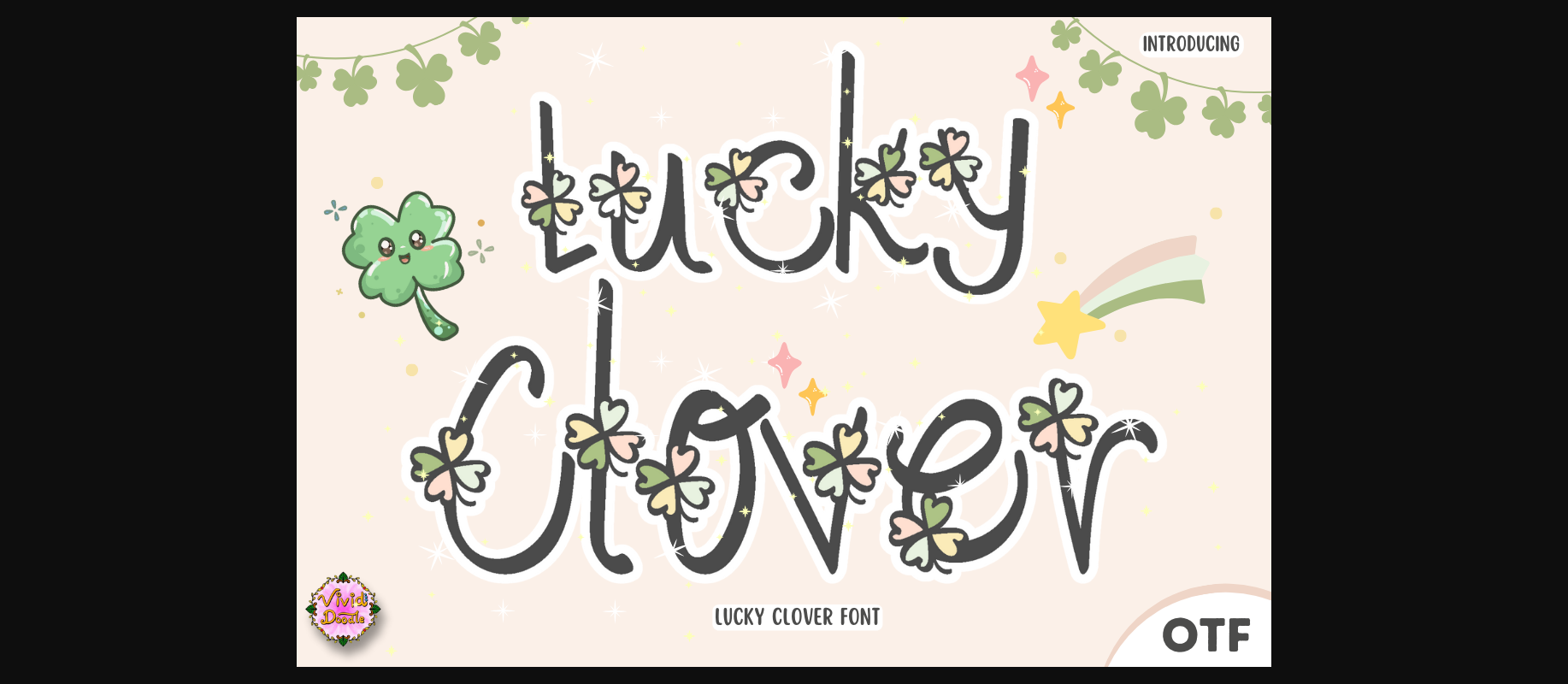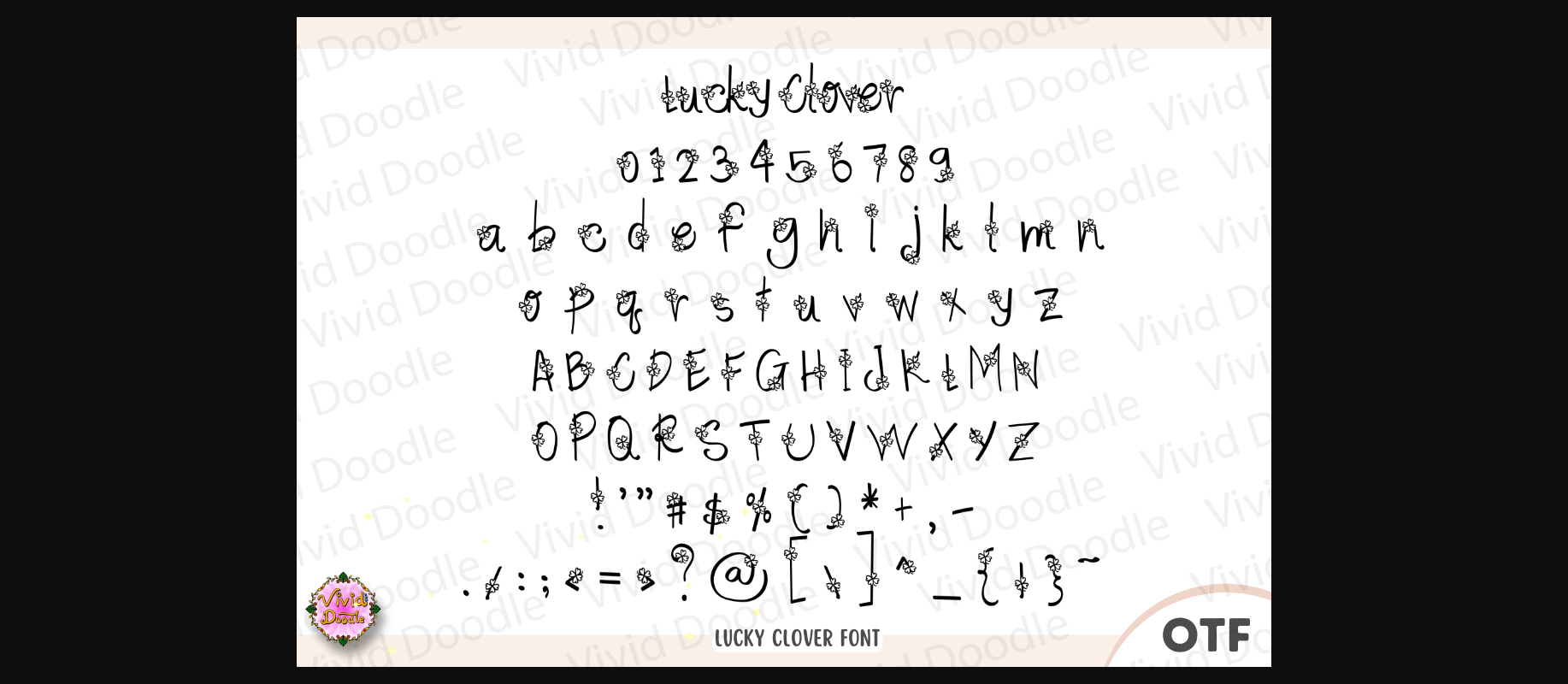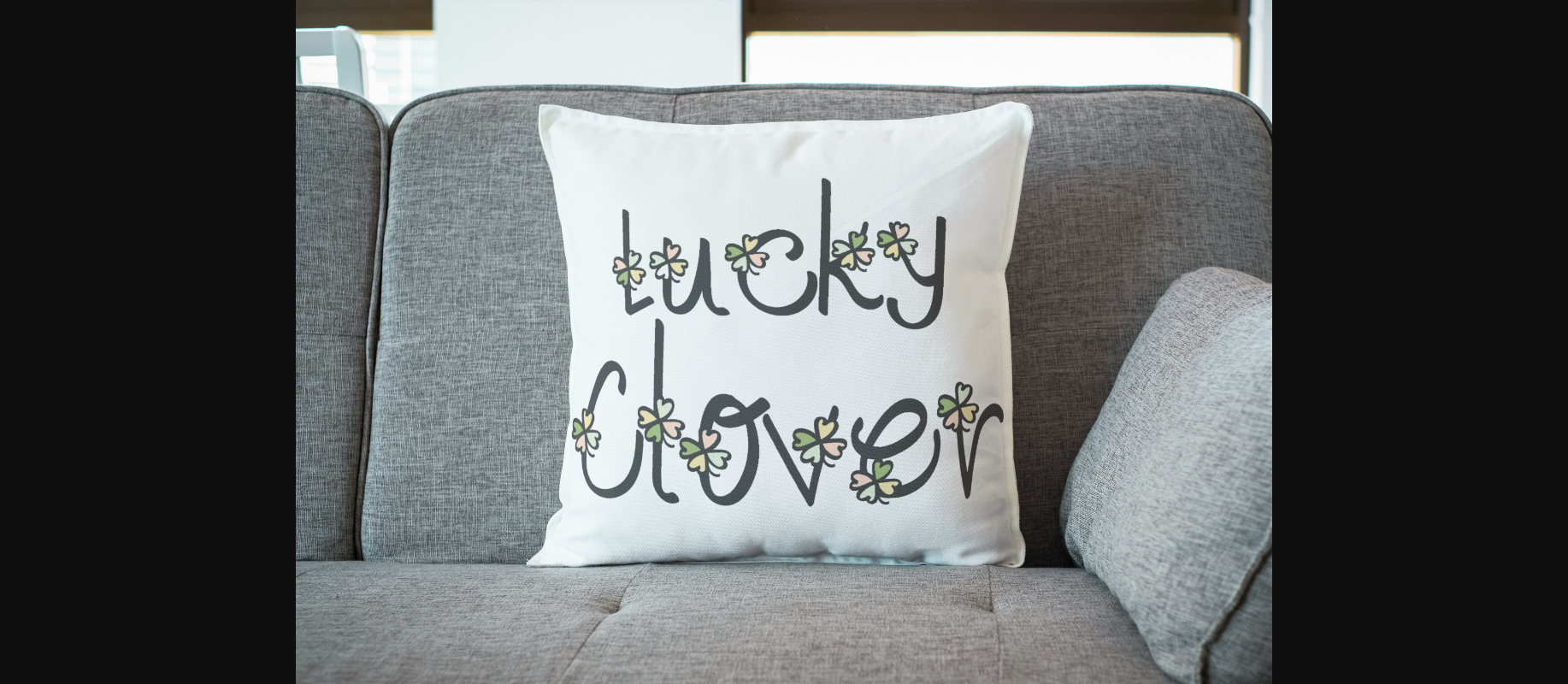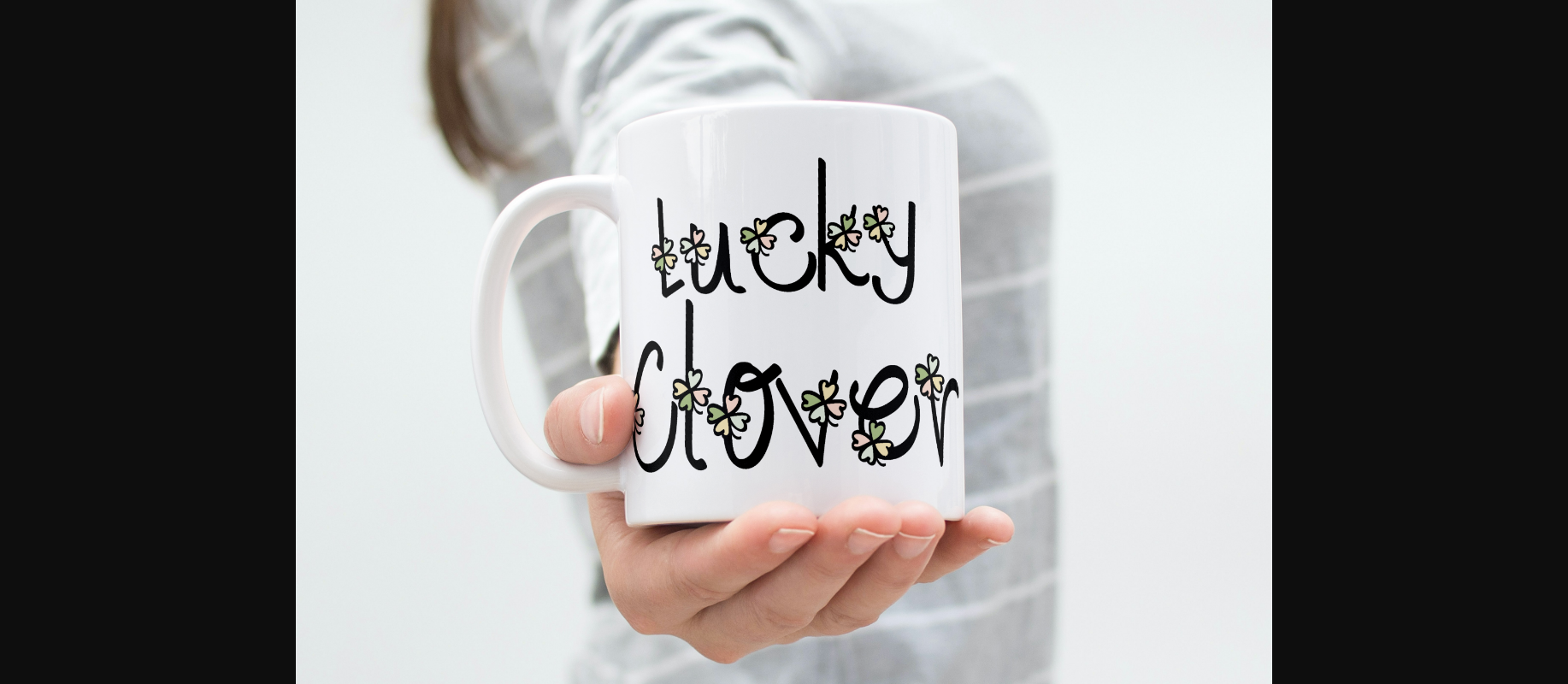
Lucky Clover Font
About Lucky Clover Font
Introducing Lucky Clover Font—an elegant and handwritten typeface perfect for St. Patrick’s Day designs. This typography lettering line design captures the essence of the holiday with a touch of sophistication. Each letter is crafted with the charm of a handwritten script, creating a festive and stylish atmosphere. Whether for St. Patrick’s Day cards, party invitations, or any other design that celebrates the luck of the Irish, this font seamlessly blends a handwritten aesthetic with a touch of elegance.